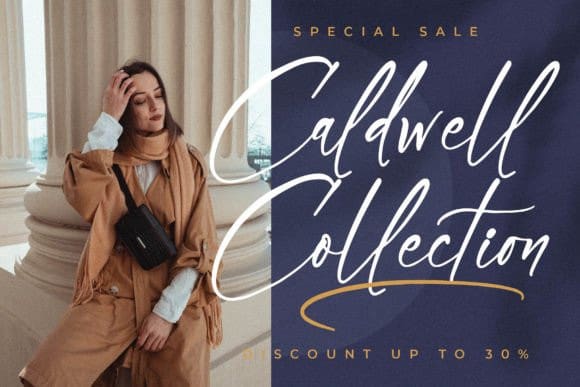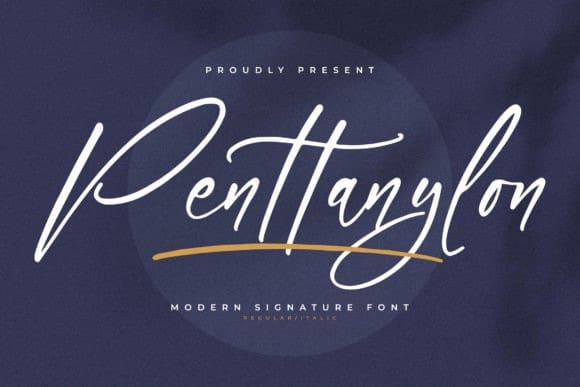
Penttanylon Script Font
Penttanylon Script Font is an elegant signature font, perfect for logos, branding projects, homeware designs, product packaging, mugs, quotes, posters, shopping bags, t-shirts, book covers, name photography watermarks and much more.